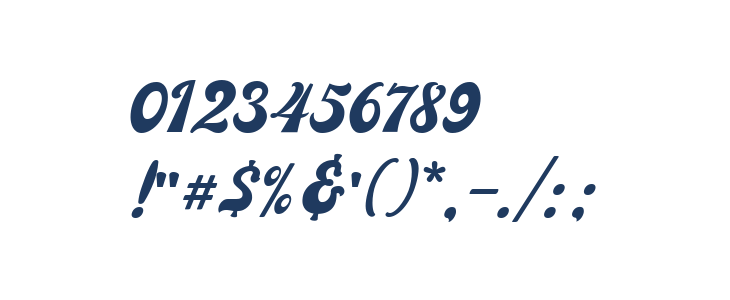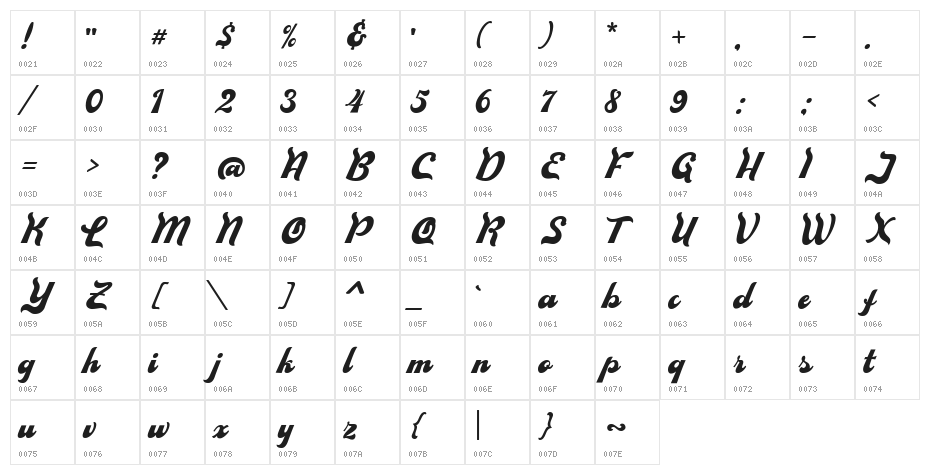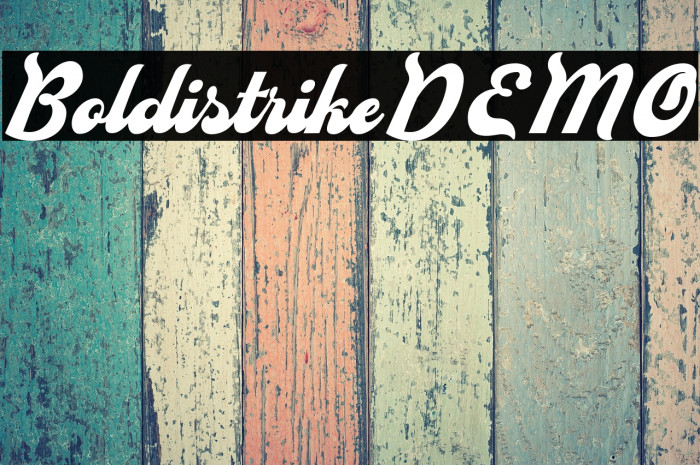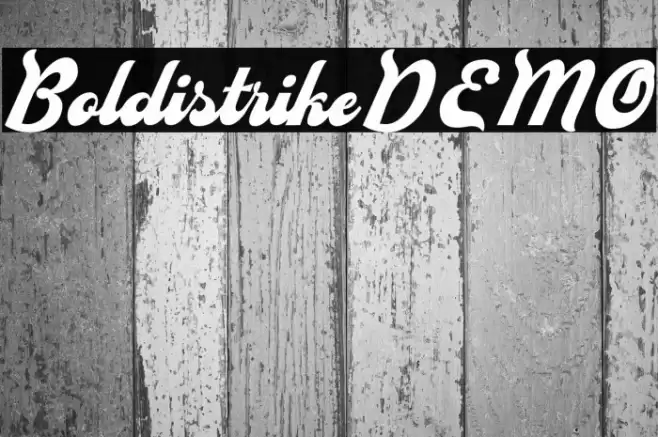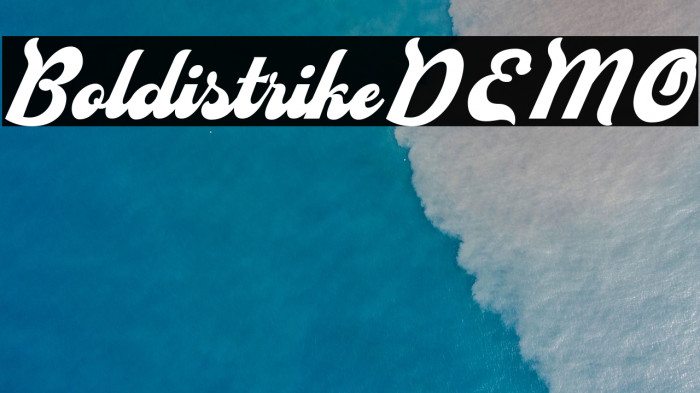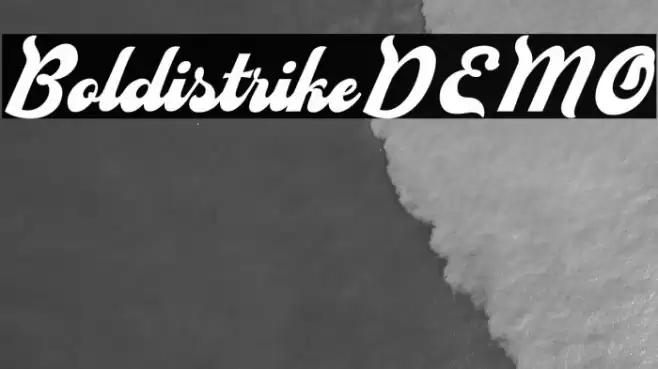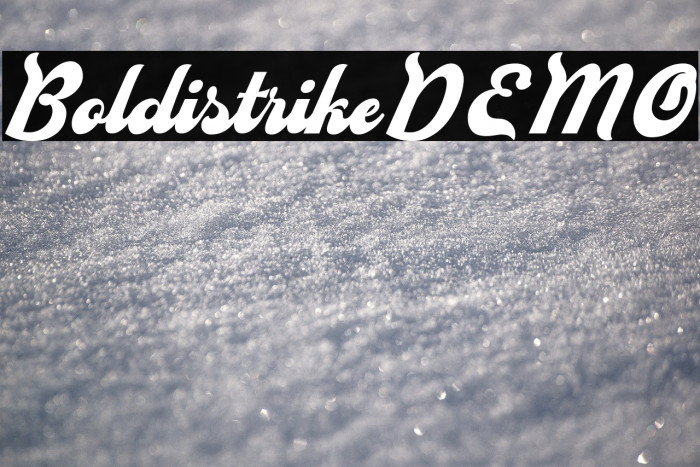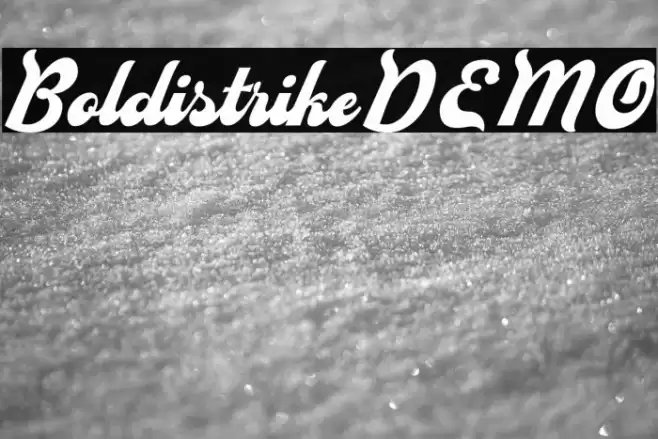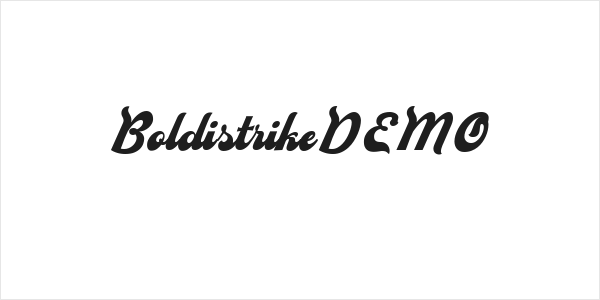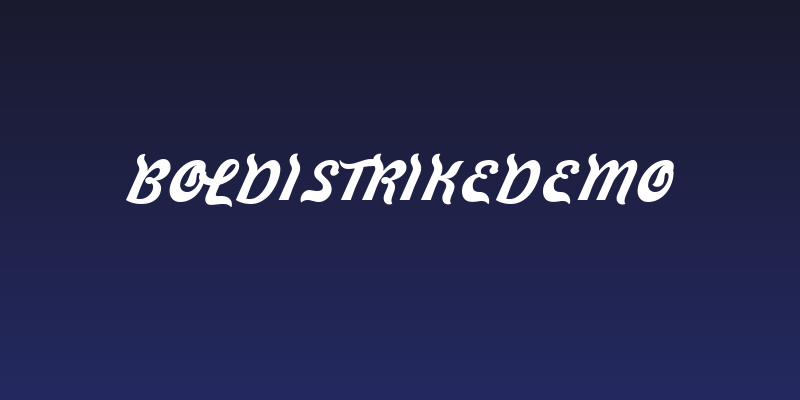
BoldistrikeDEMO Font
BoldistrikeDEMO Description
This font features a bold and dynamic script style, characterized by its thick, flowing strokes and a sense of movement. The uppercase letters are particularly striking, with a slight slant and exaggerated curves that give them a dramatic flair. The lowercase letters maintain this fluidity, offering a cohesive look across the alphabet. Numbers and special characters are equally bold, ensuring consistency throughout. The font's overall appearance is both modern and expressive, making it suitable for projects that require a strong visual impact.